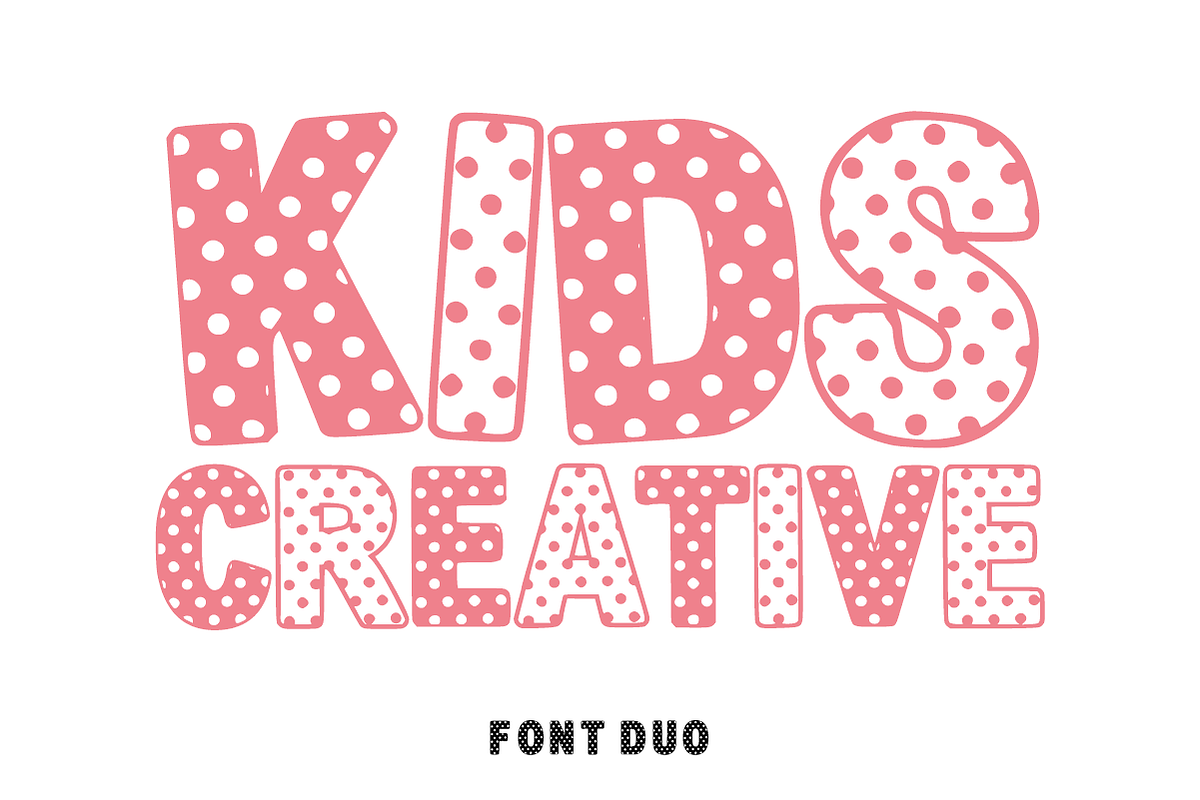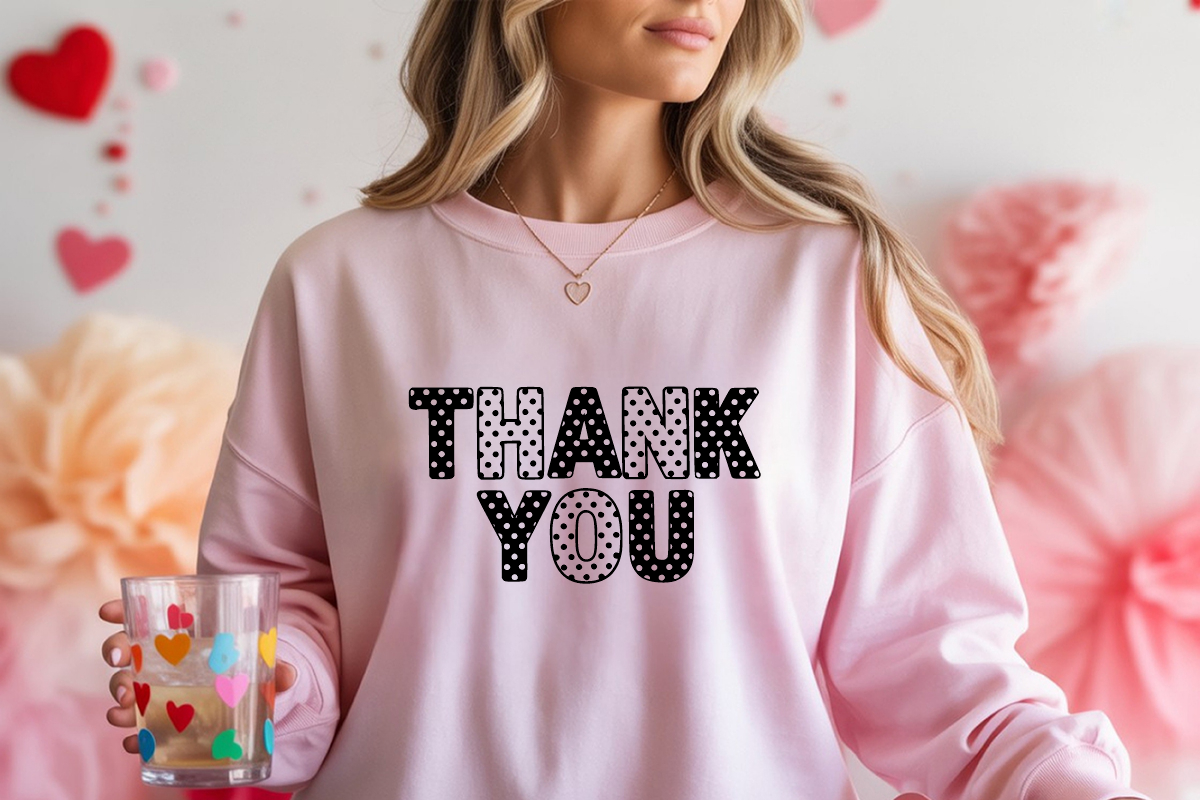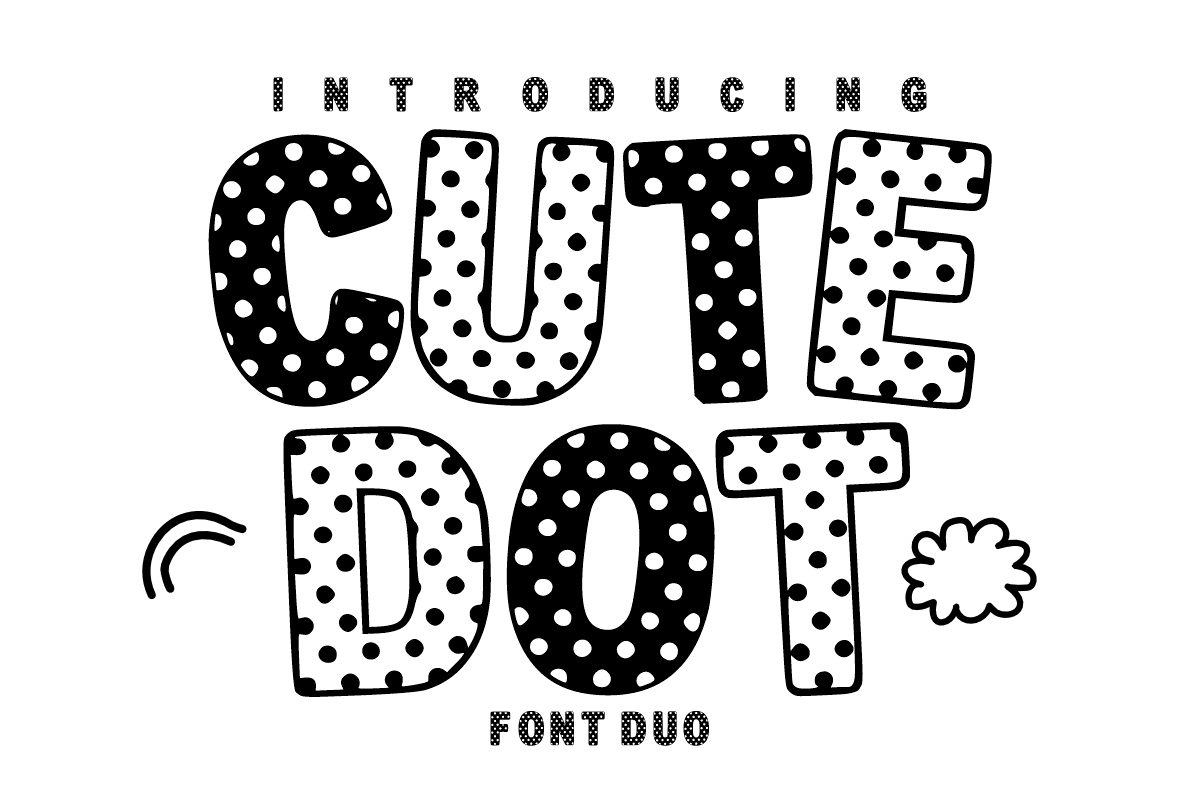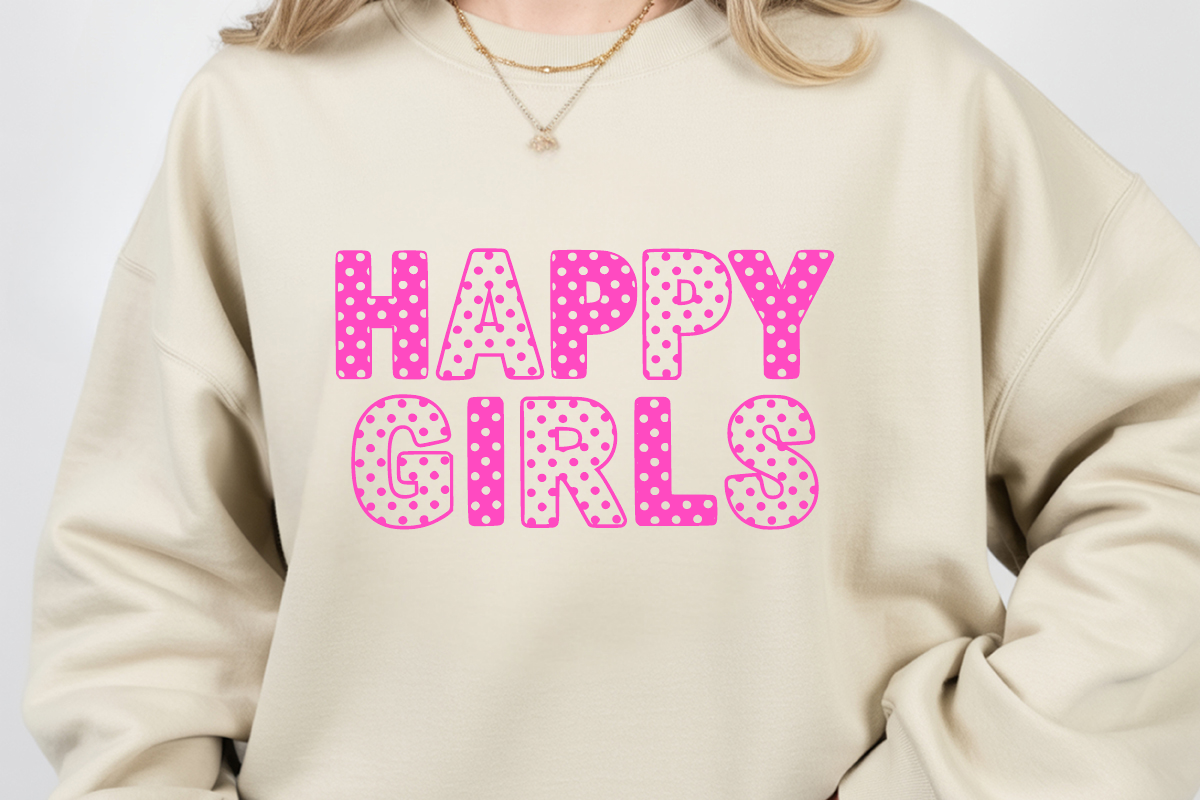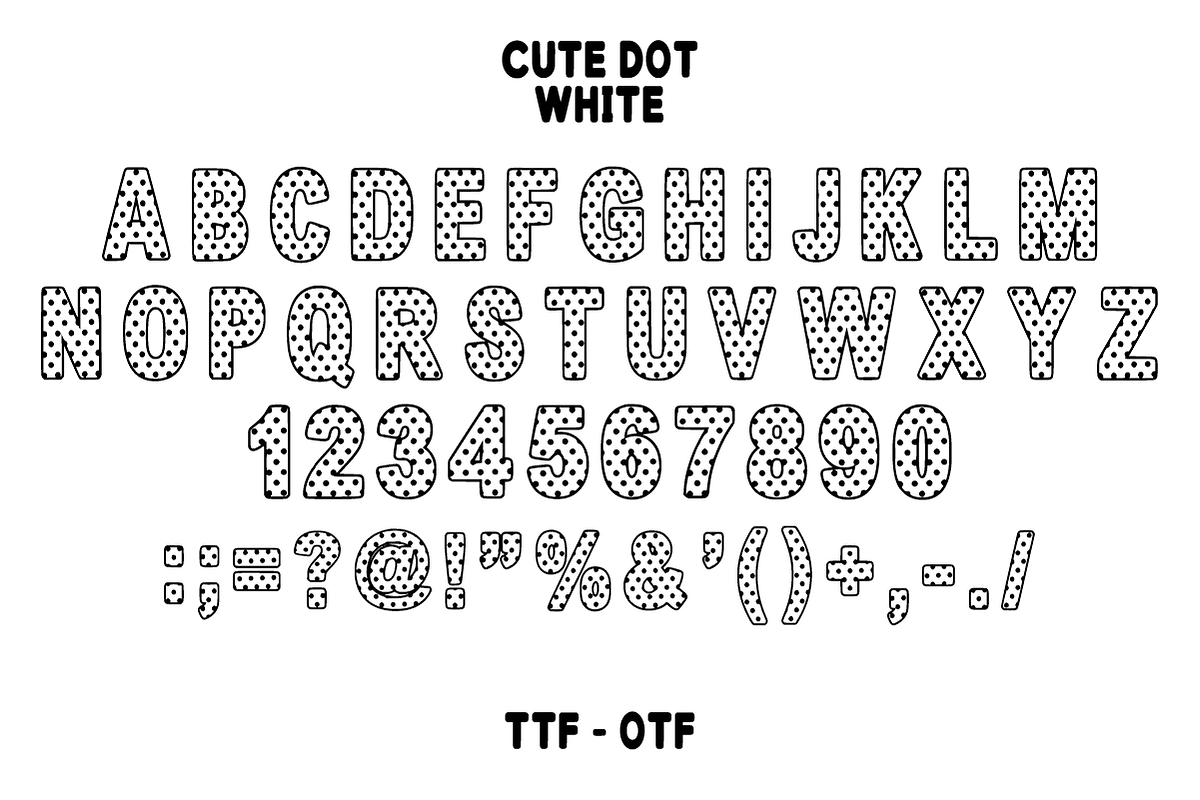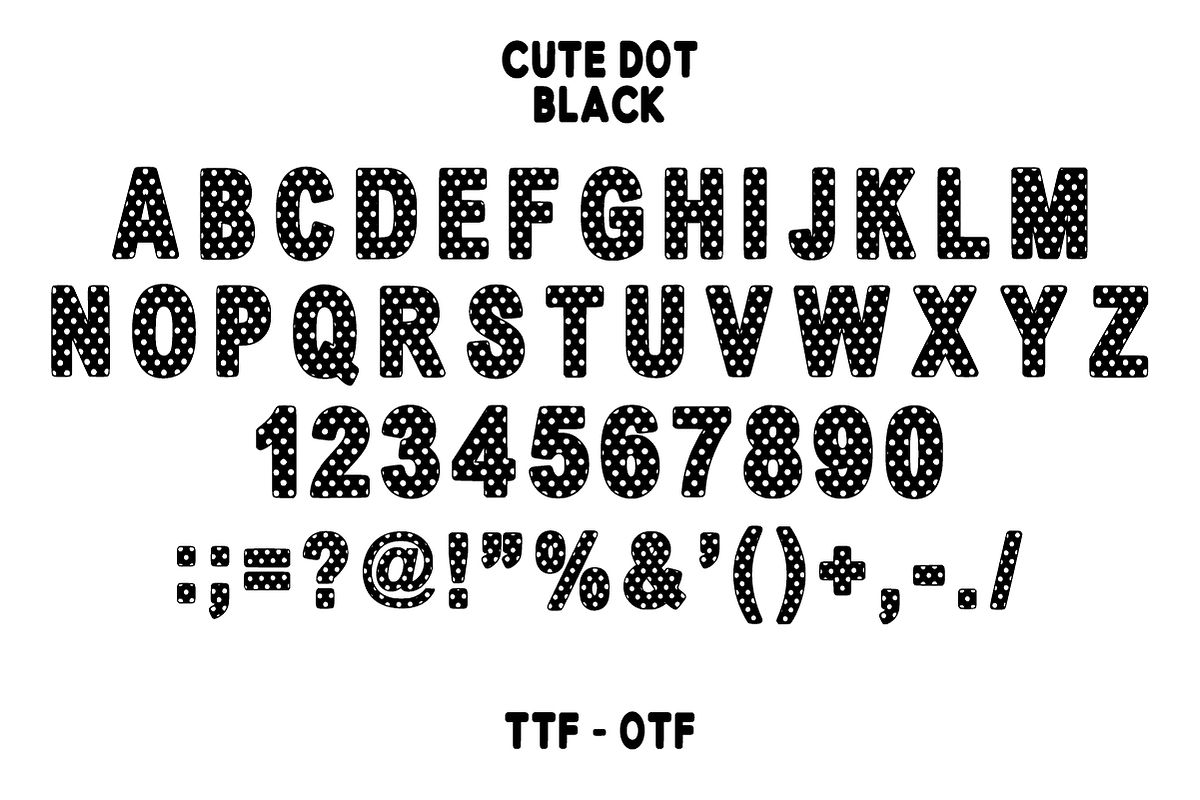
Cute Dot – Polka Dot Display Font
Cute Dot – Whimsical Polka Dot Display Font 🎈✨
Bring a burst of joy and playful texture to your creative designs!
Cute Dot is a bubbly and charming display font featuring a delightful hand-drawn polka dot pattern inside every letter. Its thick, rounded silhouette combined with the "dotted" texture makes it an instant eye-catcher for any project aimed at kids, celebrations, or whimsical branding. Designed to be fun and friendly, this font ensures your titles and headlines look unique, craft-oriented, and full of personality.
🌟 Why Cute Dot is a Must-Have:
Unique Patterned Texture: The built-in polka dot effect adds depth and visual interest without needing extra filters or effects.
Playful & Bold: Its heavy, rounded structure provides excellent legibility while maintaining a lighthearted, "pop" aesthetic.
Instant Creativity: Perfect for DIY-style designs, classroom materials, and vibrant party themes.
🎨 Perfect For:
🎂 Birthday & Party Decor: Create adorable invitations, cake toppers, banners, and greeting cards.
🏫 Educational Materials: Design engaging school worksheets, library posters, and nursery wall art.
🛍️ Kids' Branding & Packaging: Ideal for toy packaging, children’s clothing labels, and candy brand identities.
✂️ Crafts & Scrapbooking: Perfect for digital scrapbooking, sticker designs, and Cricut/Silhouette projects.
📱 Social Media Graphics: Stand out with cute YouTube thumbnails, Pinterest pins, and playful Instagram stories.
Character Set: Bold Uppercase Letters (A-Z) with a consistent dot pattern.
Numbers & Symbols: Complete numerals (0-9) and simple essential punctuation.